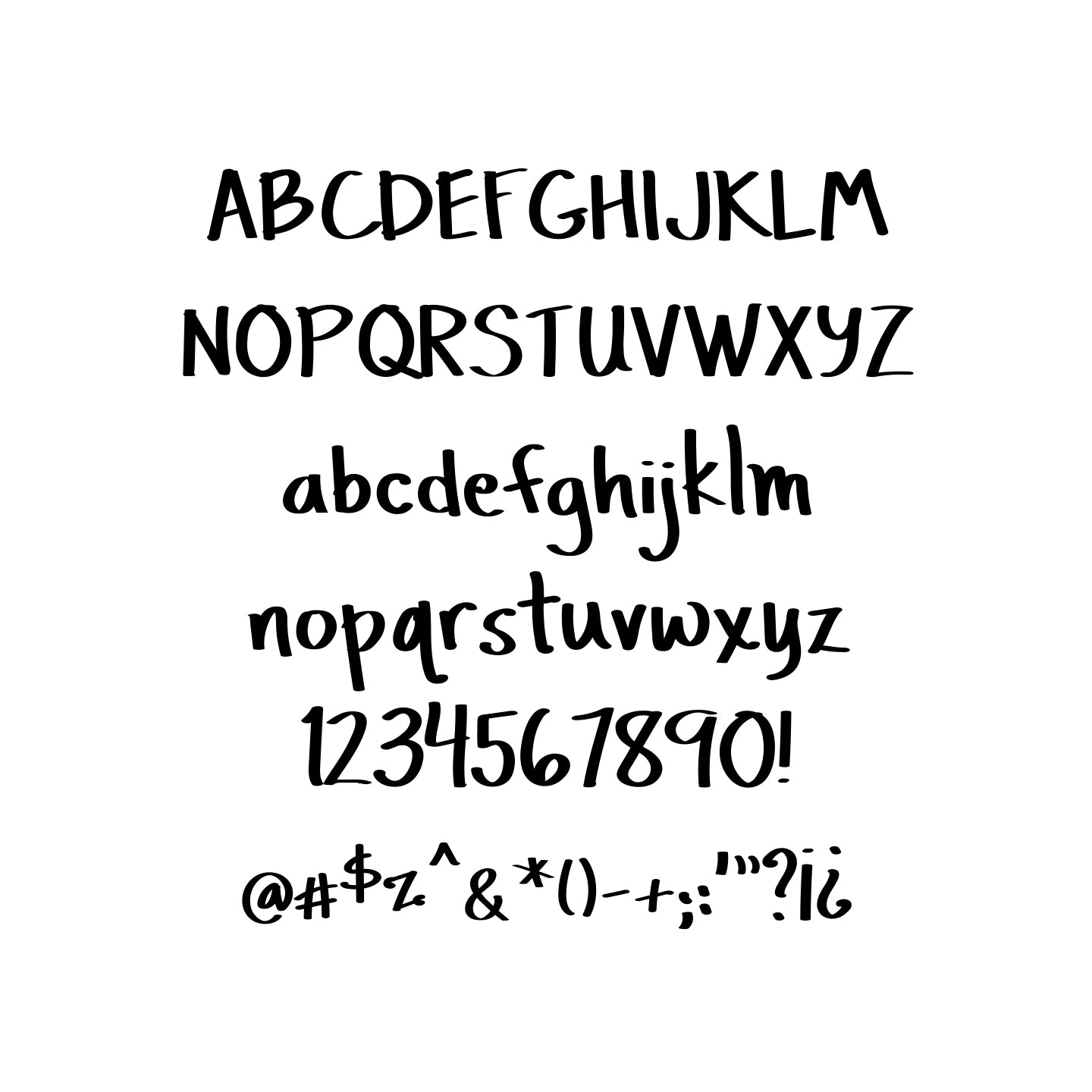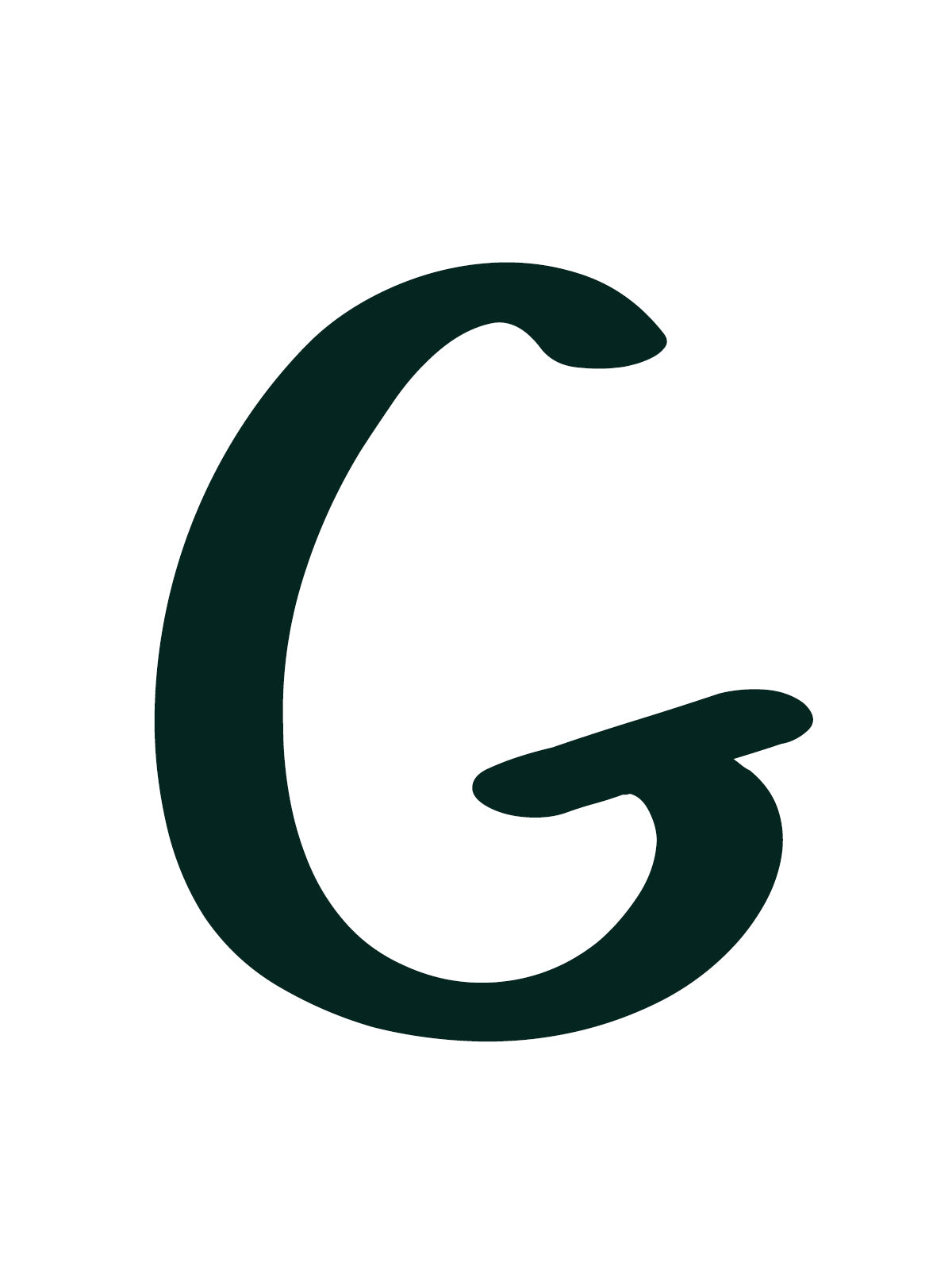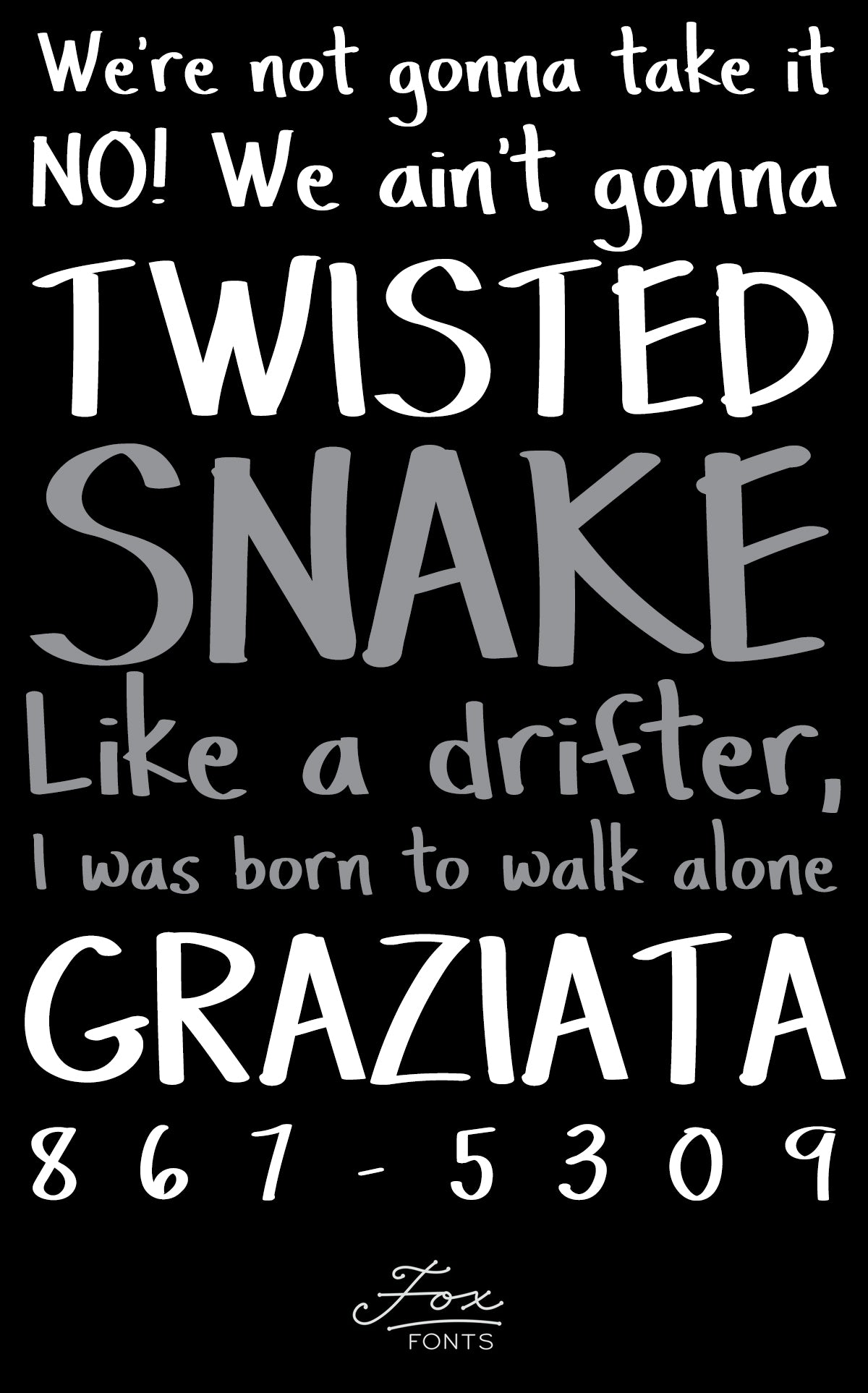
Graziata
Fashioned to resemble a felt tip marker and with a slight skew to the left, Graziata combines the casual strokes of imprecise handwriting with fine irregular kerning and other mechanical details that make it reliable and easy to read, even at small sizes. It reads as a believable unisex script in dozens of languages.
Designed by April Carter Grant